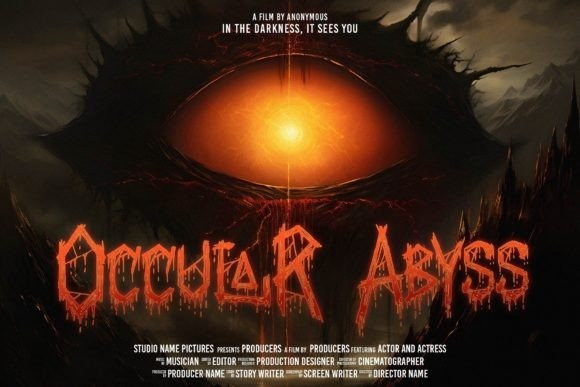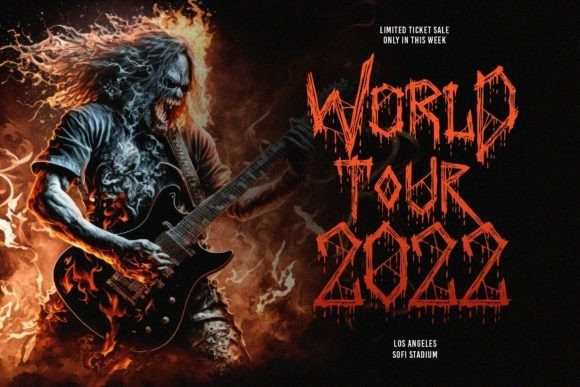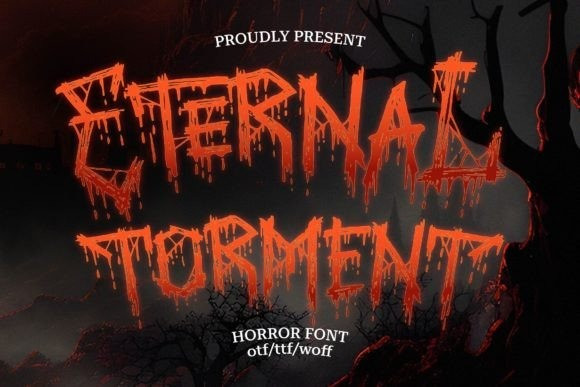
Eternal Torment Font
Eternal Torment Font is a spooky font that looks like it’s straight out of a scary story. Its sharp, blackletter style gives it an eerie vibe, perfect for adding a creepy touch to your Halloween party invitations or horror-themed projects.